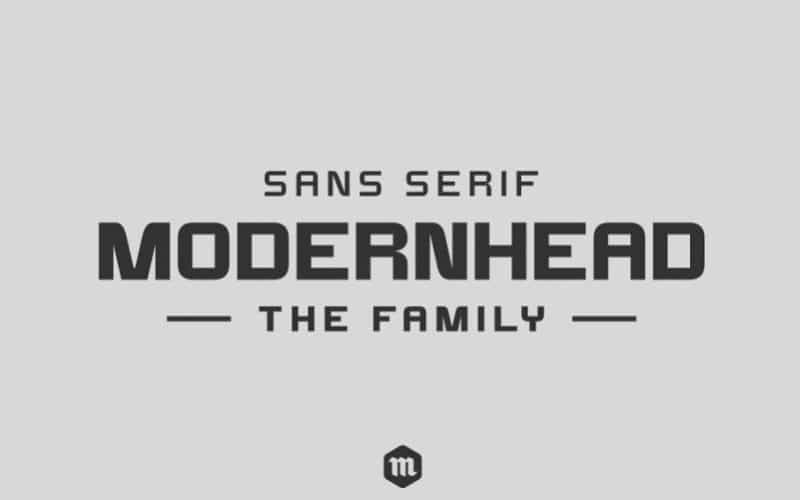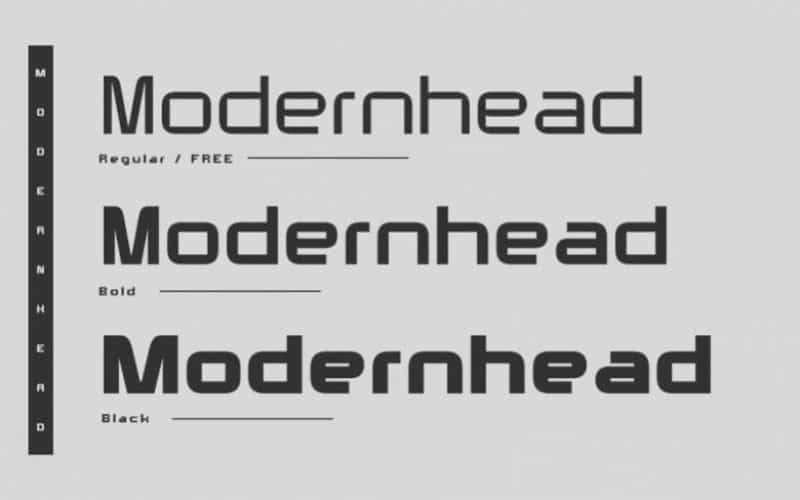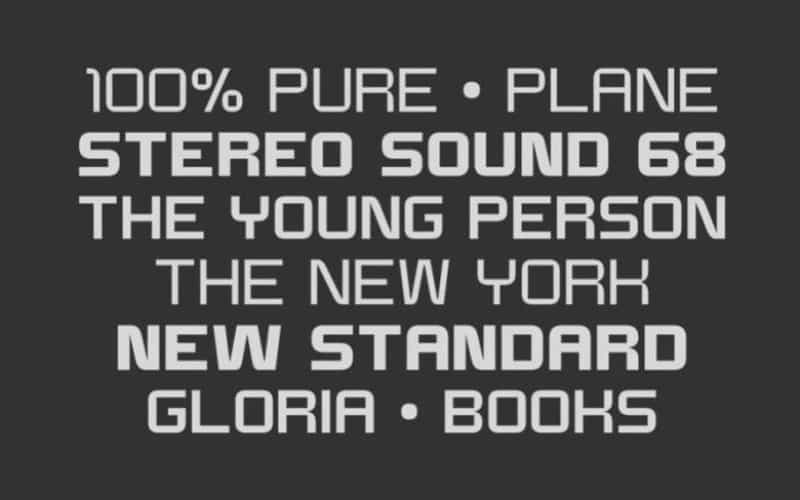
Modernhead is a 3 weights font family. It is a modern, unexpected, clean and simple sans serif font. It has 252 glyphs and supports multiple foreign languages. Is perfect for modern logo designs, headers and small amounts of text. It contains an uppercase and lowercase alphabet with numbers and symbols.